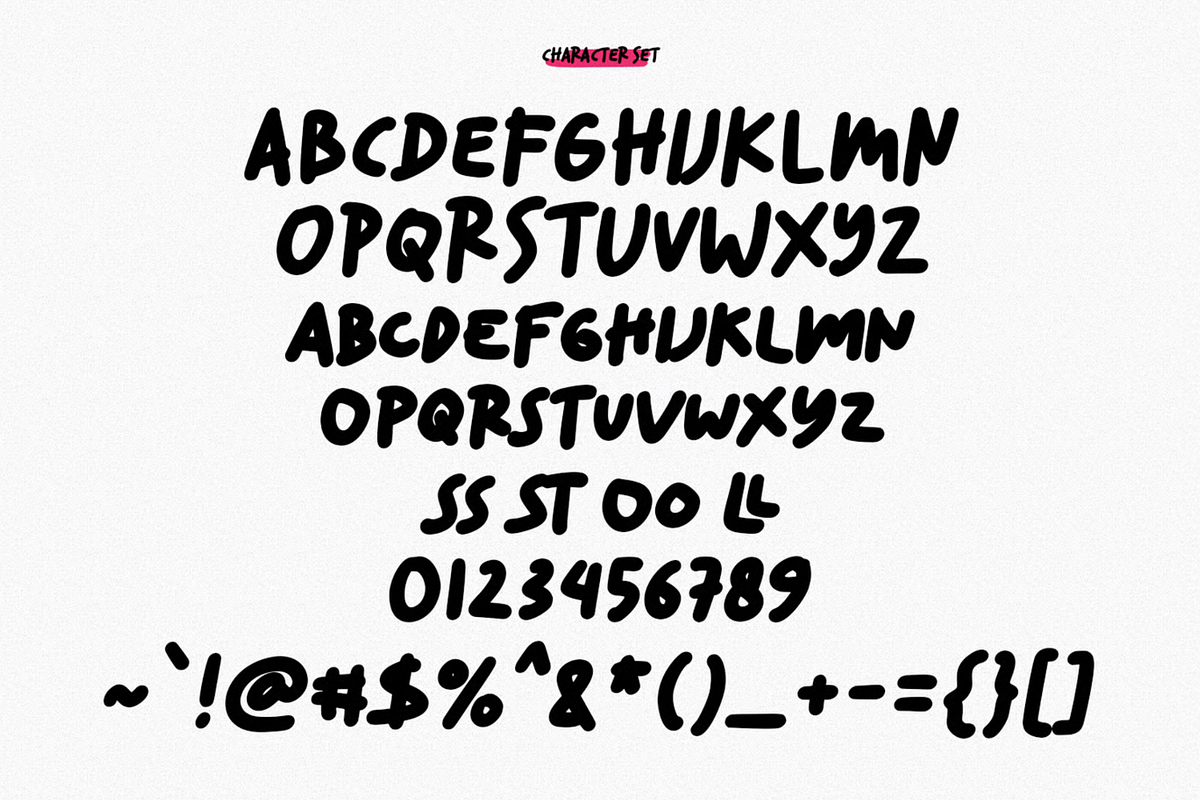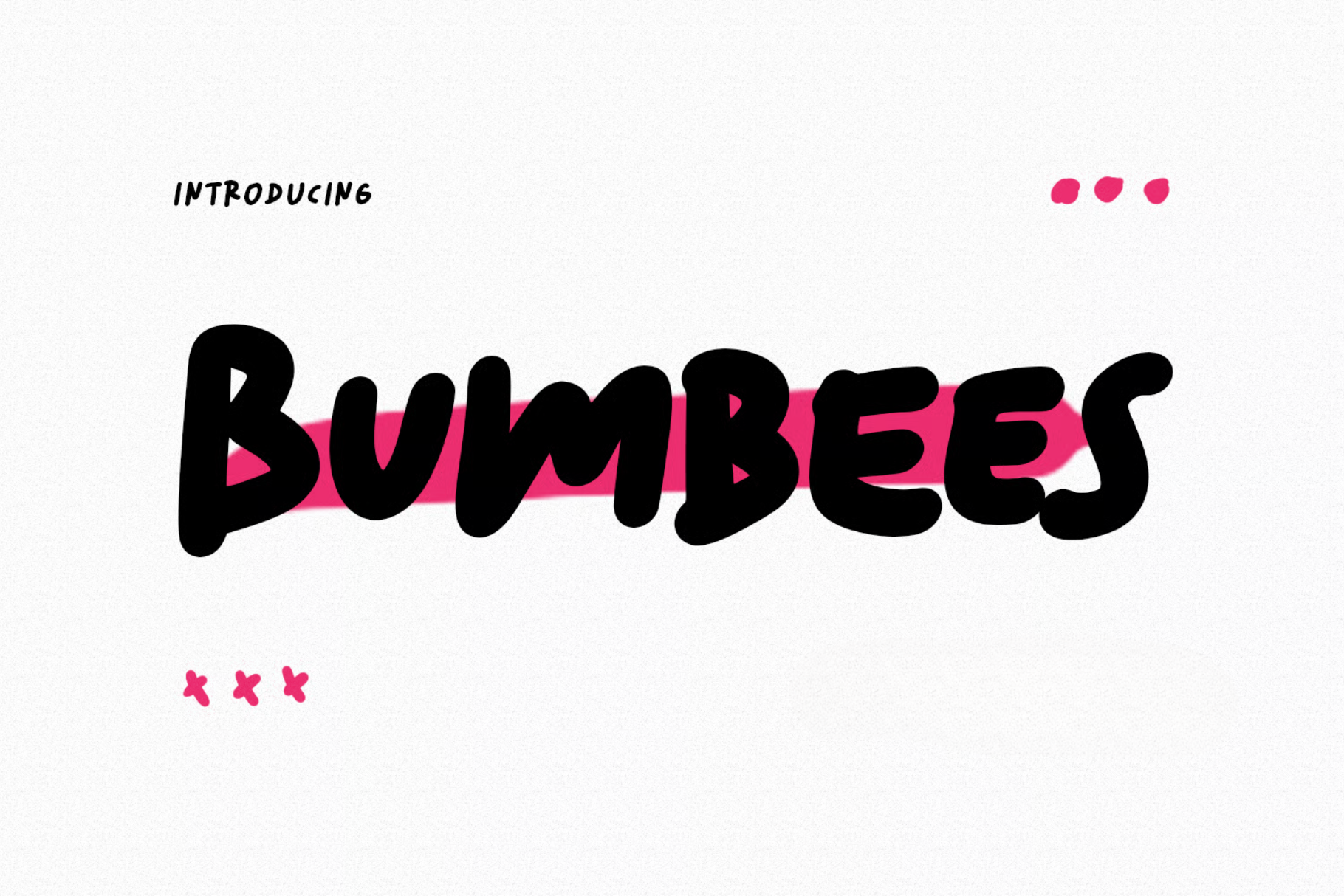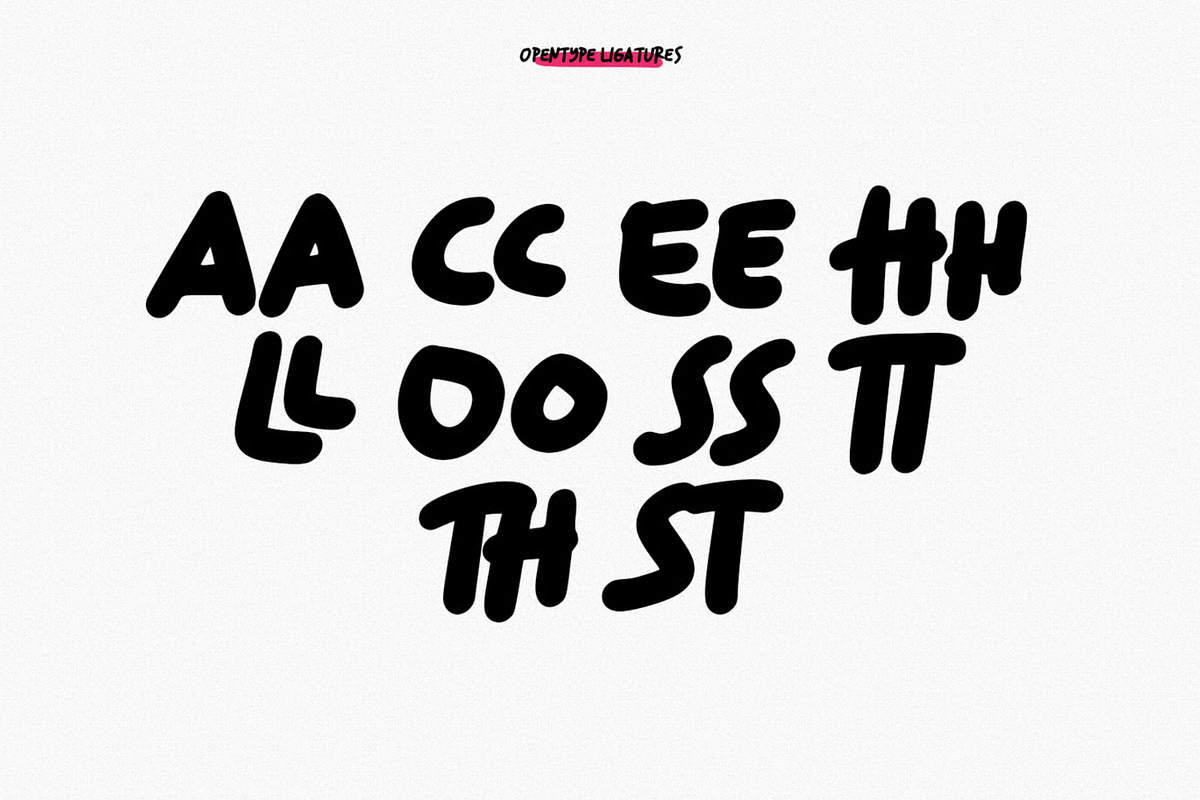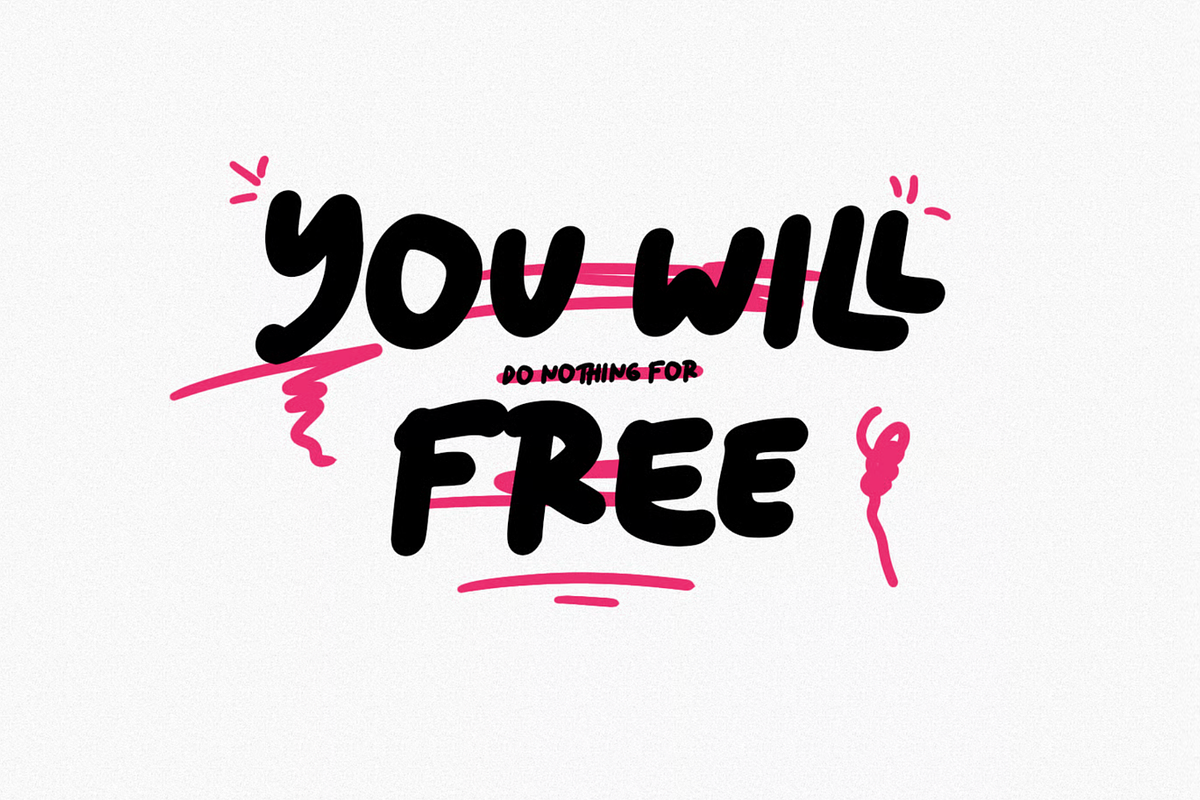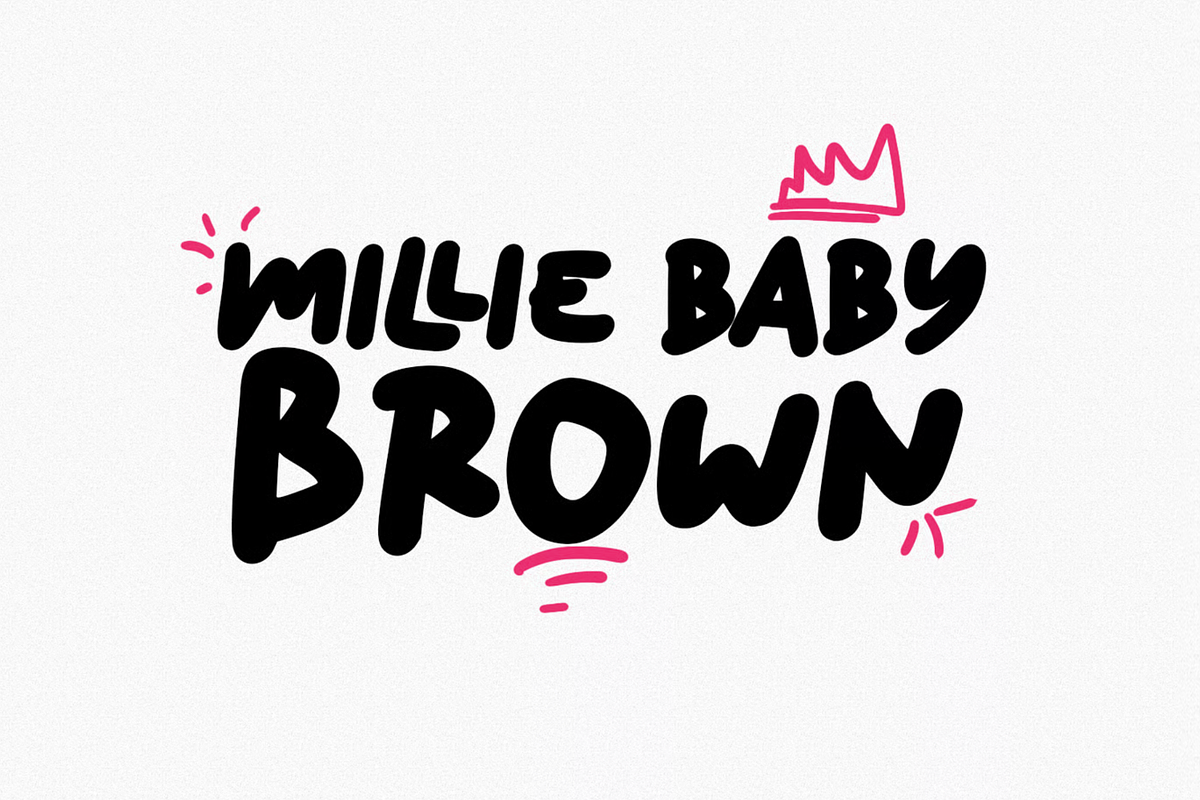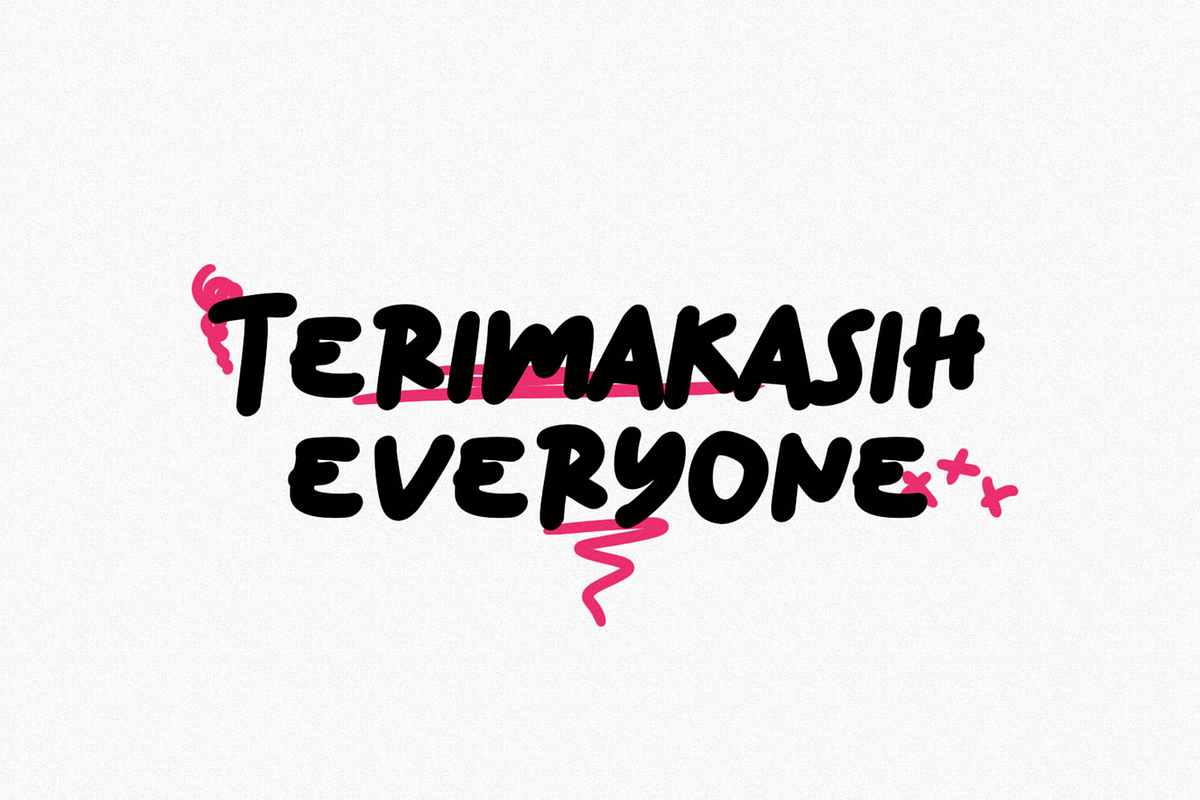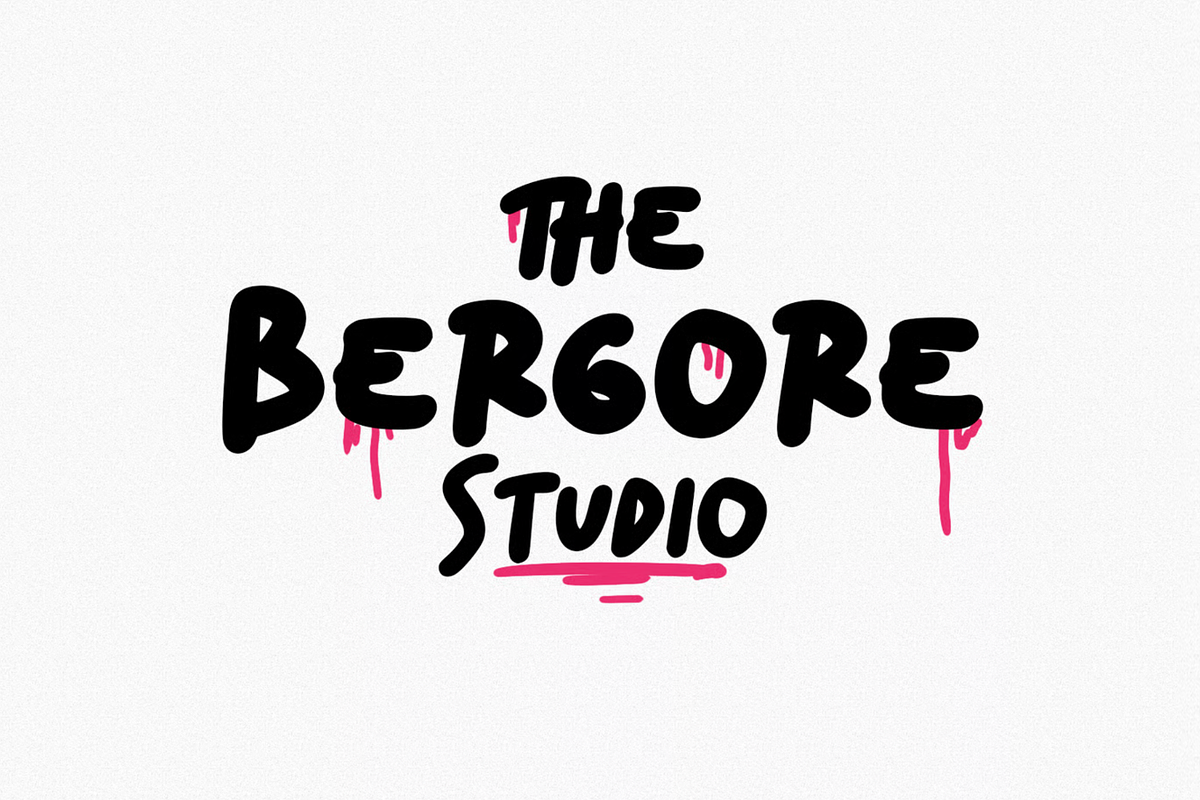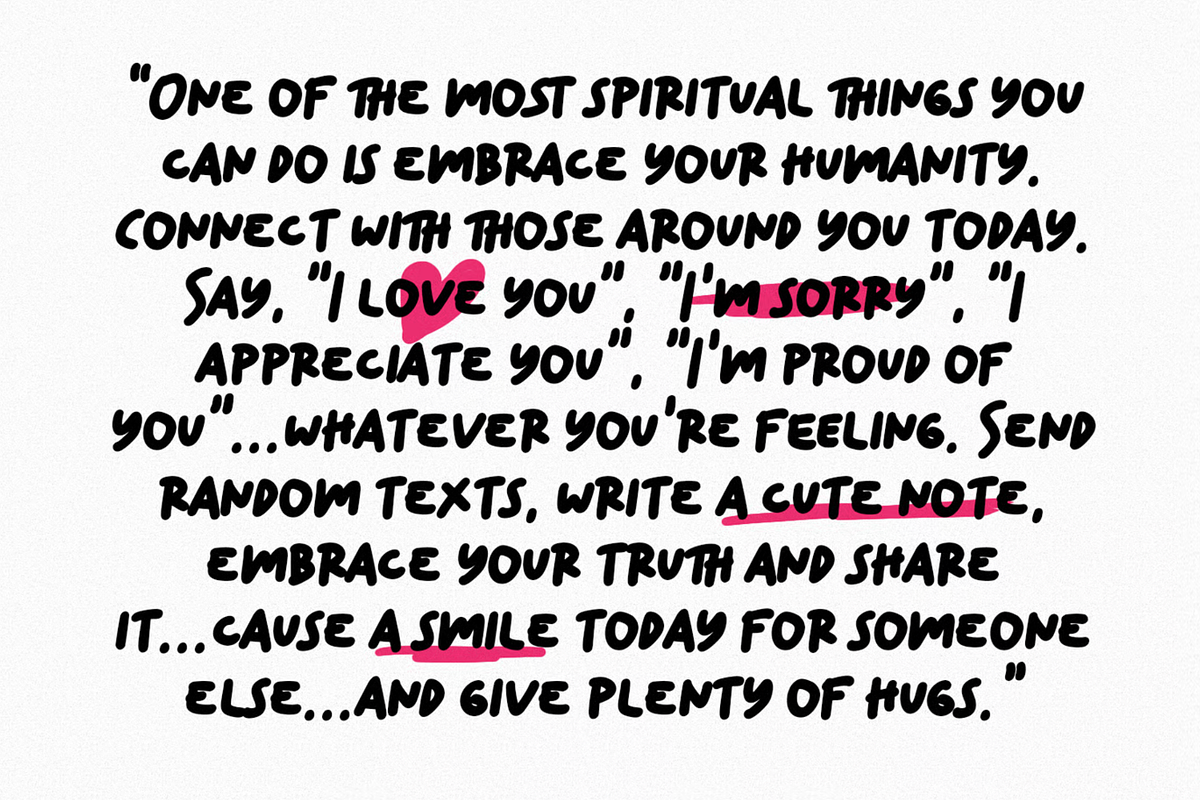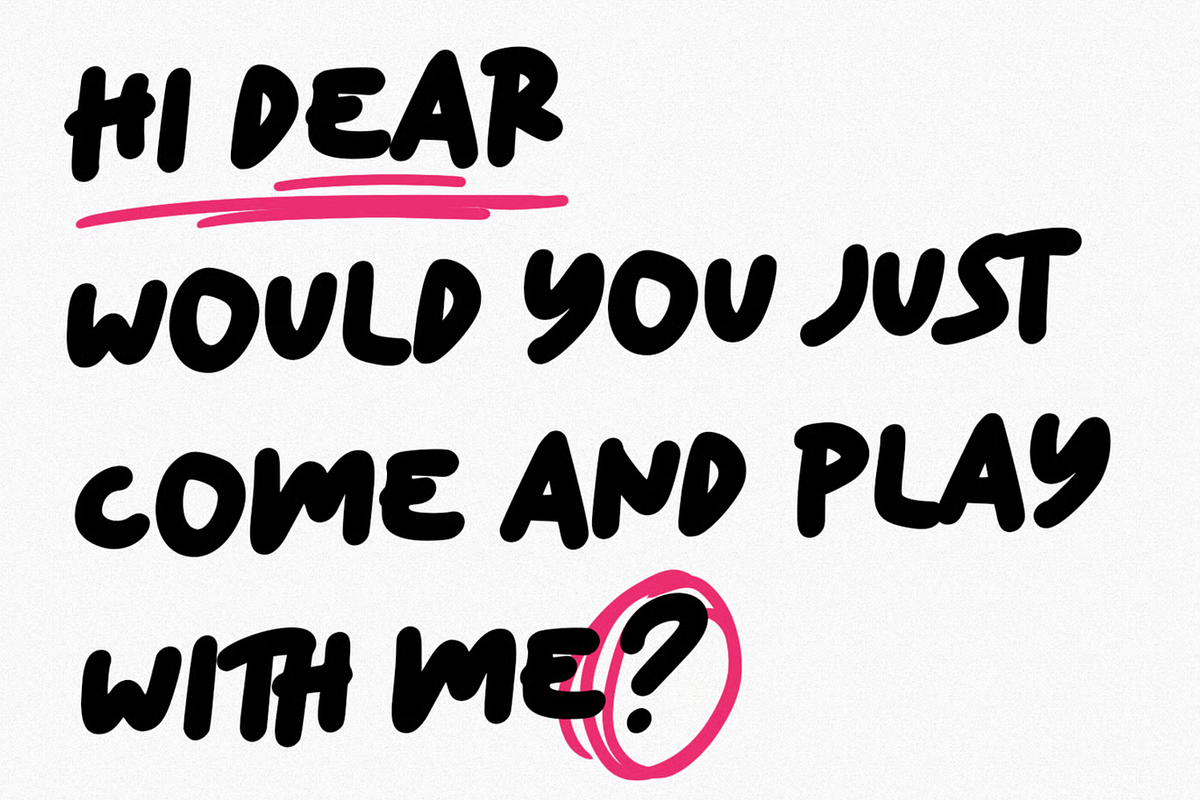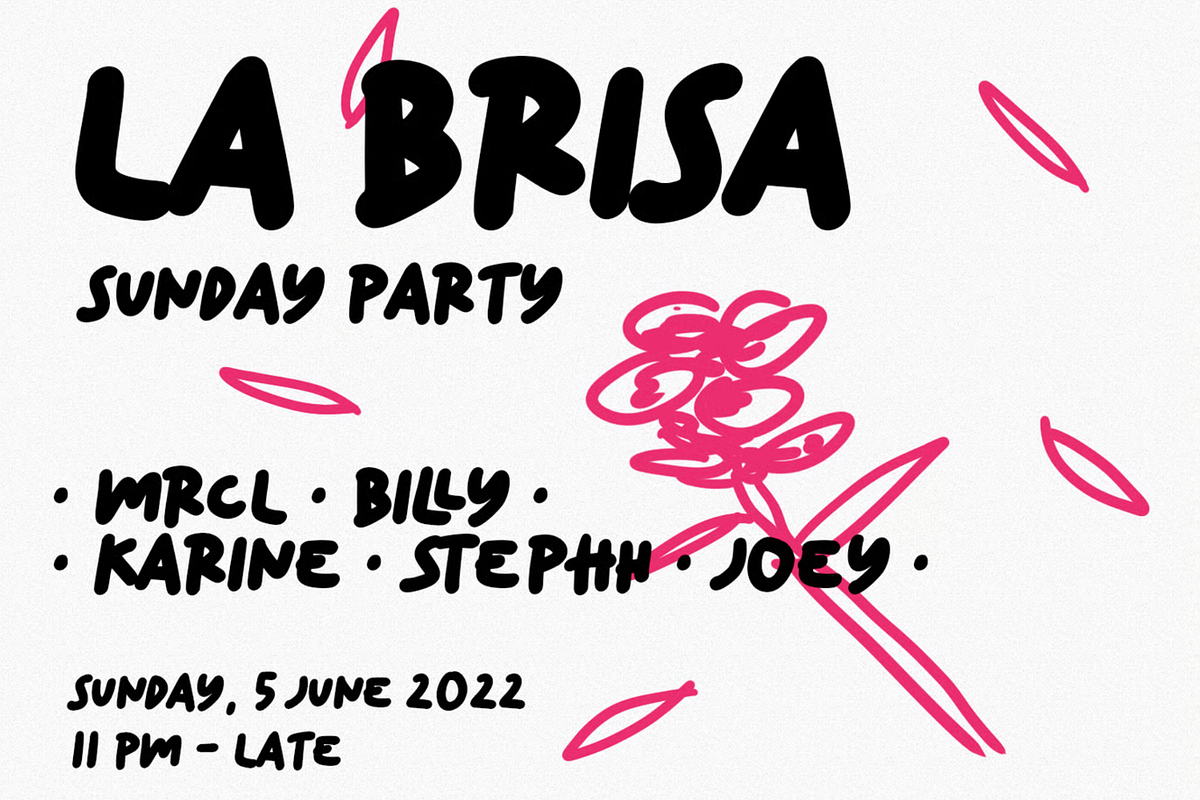
Bumbees Handwritten Font
Bumbees is a casual marker handwritten font. With medium stroke, fun character with a bit of ligatures and alternates. To give you an extra creative work. Bumbees font support multilingual more than 100+ language. This font is good for logo design, Social media, Movie Titles, Books Titles, a short text even a long text letter and good for your secondary text font with sans or serif. Make a stunning work with Bumbees font.